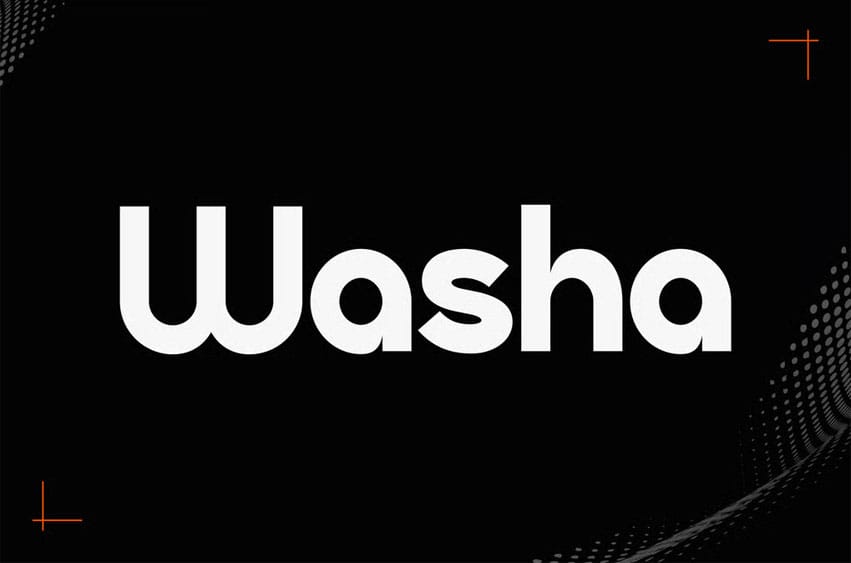
Washa Font is a contemporary geometric display typeface for high-impact branding that blends clean rounded contours with confident vertical proportions, creating a warm yet structured rhythm ideal for social media headlines, editorial layouts, and modern digital identities. Its bold presence and low-contrast construction give every letter a steady, grounded flow that instantly communicates clarity and confidence.
This font carries a bold, expressive, and modern vibe, making it perfect for Instagram visuals, event posters, architectural presentations, and creative corporate campaigns. The letterforms combine rounded terminals, balanced width, and strong visual weight, giving designers a tool that feels both forward-thinking and highly functional across branding systems.
Washa helps brands stand out by delivering a clear, energetic tone that works beautifully in branding, posters, editorial spreads, landing pages, product presentations, digital ads, and corporate identity kits. Because of its structured geometry and warm minimalism, it instantly elevates layouts that need a confident voice—whether you’re shaping a tech startup identity, presenting a creative initiative, or building social media visuals that grab attention quickly.
Key Features : Bold Display Rhythm
- Strong visual presence for headlines and hero sections
- Rounded construction that softens the geometric form
Designed for Modern Branding
- Works well with architecture, agency, corporate, and product-driven aesthetics
- Ideal for contemporary posters, event graphics, and digital campaigns
Enhanced Visual Flow
- Balanced proportions keep text readable even at large scale
- Clean structure supports professional and polished layouts
Versatile Creative Use
- Suitable for social media, packaging, business cards, editorial, and website hero text